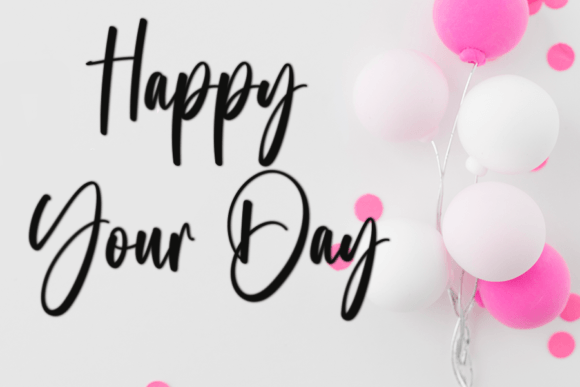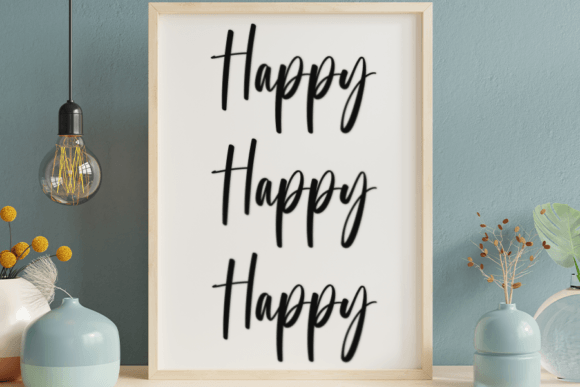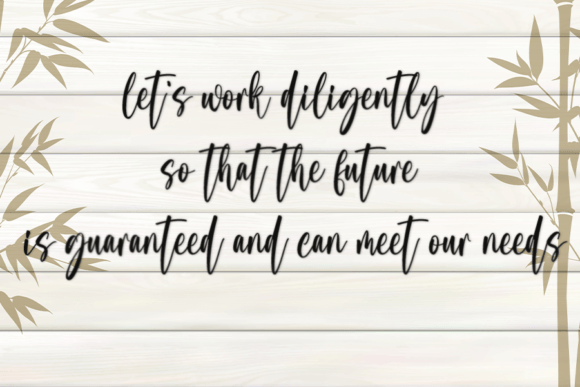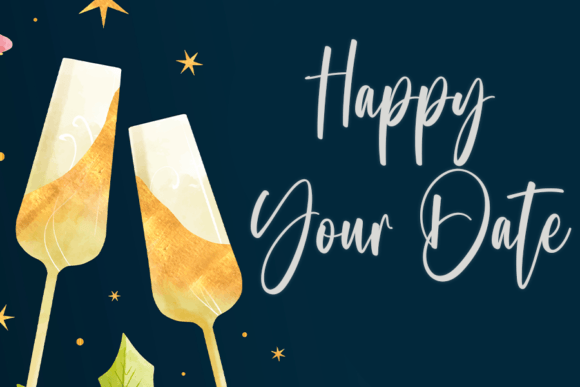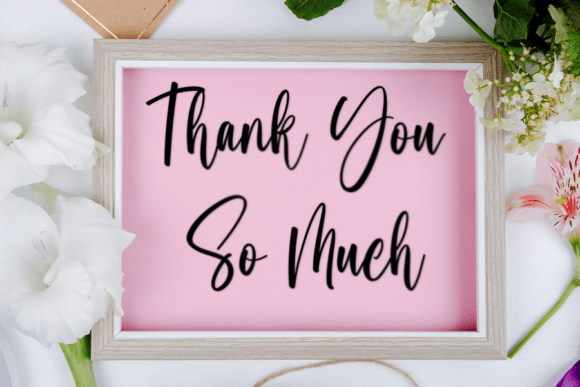
The Perfect Handwritten Touch: Unveiling the Birthday Font
As a designer, there’s nothing quite like the thrill of bringing a creative idea to life. You’re brainstorming, sketching, and experimenting with different styles until – voilà! – your vision starts to take shape. But sometimes, all it takes is the right font to elevate your work from good to great. That’s where the Birthday Font comes in, a gorgeous handwritten font designed to add an elegant, curvy touch to your designs.
Whether you’re working on a product packaging project, branding a new business, or creating a magazine cover, the Birthday Font is the perfect choice. Its sweet, handwritten style is versatile enough to be used in a variety of contexts, from weddings to social media posts. And for designers, that’s what makes it so valuable – it’s a reliable go-to font that can add a personal, human touch to even the most corporate of designs.
Birthday Font Key Features
- Unique Characteristics: The Birthday Font features a playful, cursive design with decorative flourishes, making it perfect for creating festive and celebratory designs.
Birthday Font Review
I recently had the chance to work with the Birthday Font, and I must say it was a unique experience. Here are my thoughts on what works well and what doesn’t.
- The font’s playful, cursive design is perfect for creating a festive atmosphere.
- It’s highly customizable, with various color options and sizes to choose from.
- The font is well-suited for birthday invitations, party decorations, and other celebratory materials.
- The font can be a bit too ornate for some designs, making it difficult to read at smaller sizes.
- It may not be the best choice for formal or professional materials, as it can come across as too casual.
- The font’s versatility can also make it feel a bit overused if not used carefully.
The Birthday Font is a great choice for those looking to add a touch of whimsy and fun to their designs. While it may have some limitations, it’s a valuable addition to any designer’s toolkit. With careful use, it can add a unique and celebratory feel to any project.
The Birthday Font is perfect for creating invitations, party decorations, and other celebratory materials. To get the most out of it, use it in bold and colorful designs to make your projects stand out. You can also combine it with other fonts and graphics to create a unique and festive look.